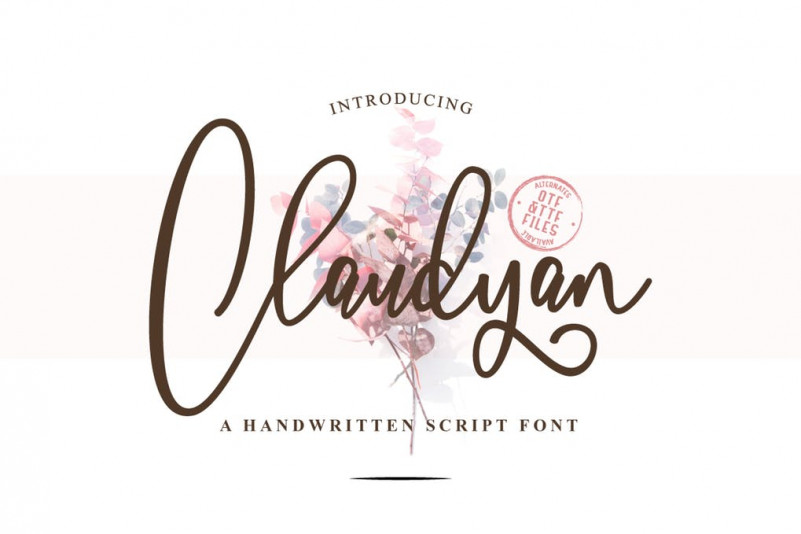
Claudyan Font
Say hello to Claudyan Script – A contemporary calligraphy, with a vintage feel, style calligraphy with moving baseline and elegant touch. That makes the font look fabulous! Can be used for various purposes, such as headings, signature, logos, wedding invitation, t-shirt, letterhead, signage, news, posters, badges etc.